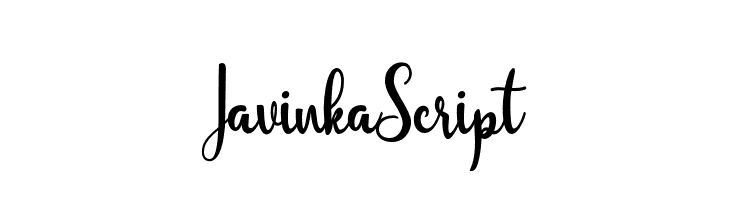
A playful, casual handwritten font with dynamic curves and varying stroke widths.
A dynamic, expressive handwritten font with fluid letterforms and varying stroke widths.
A playful, handwritten script font with dynamic curves and varying stroke widths.
A flowing, cursive script font with elegant loops and varying stroke widths.